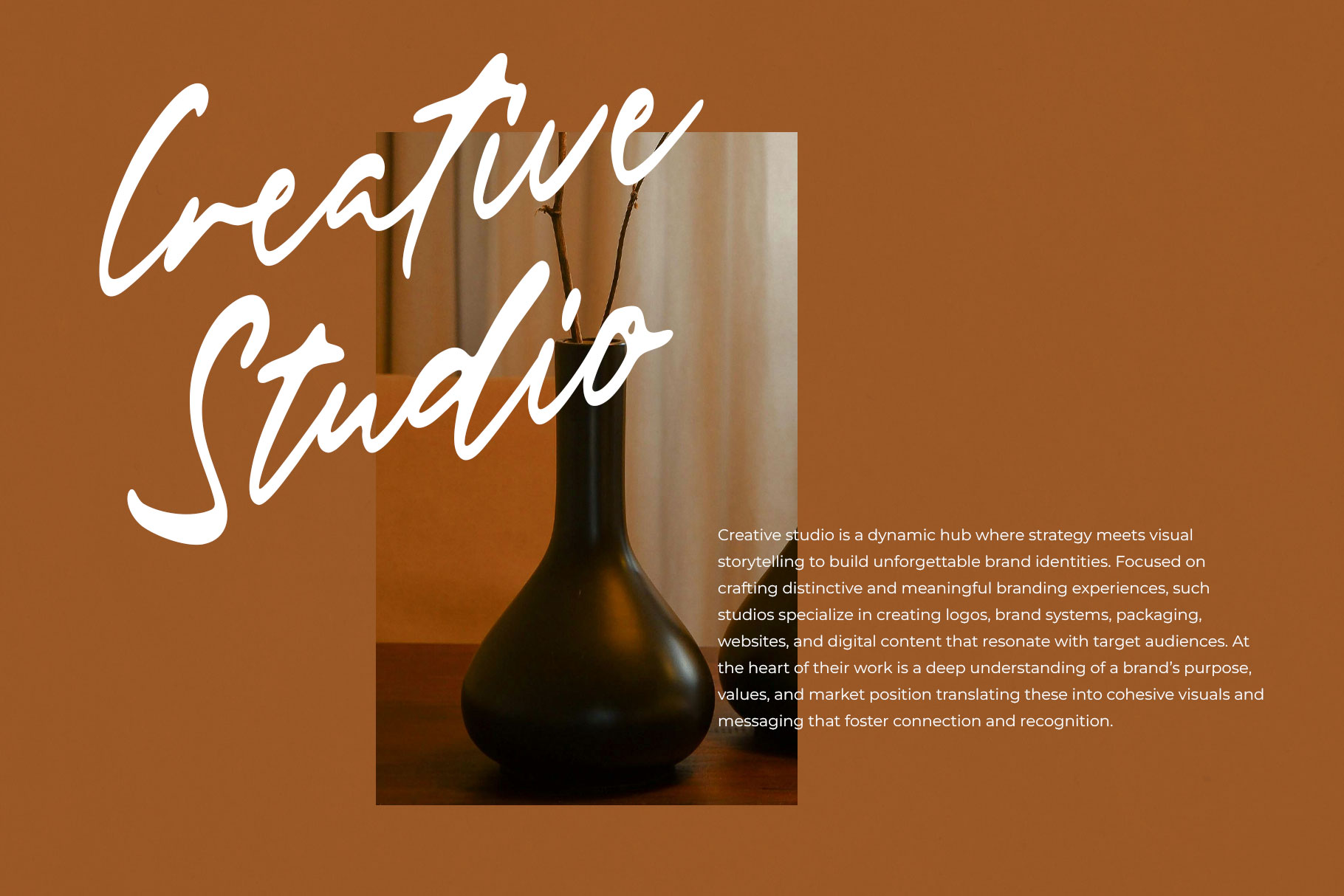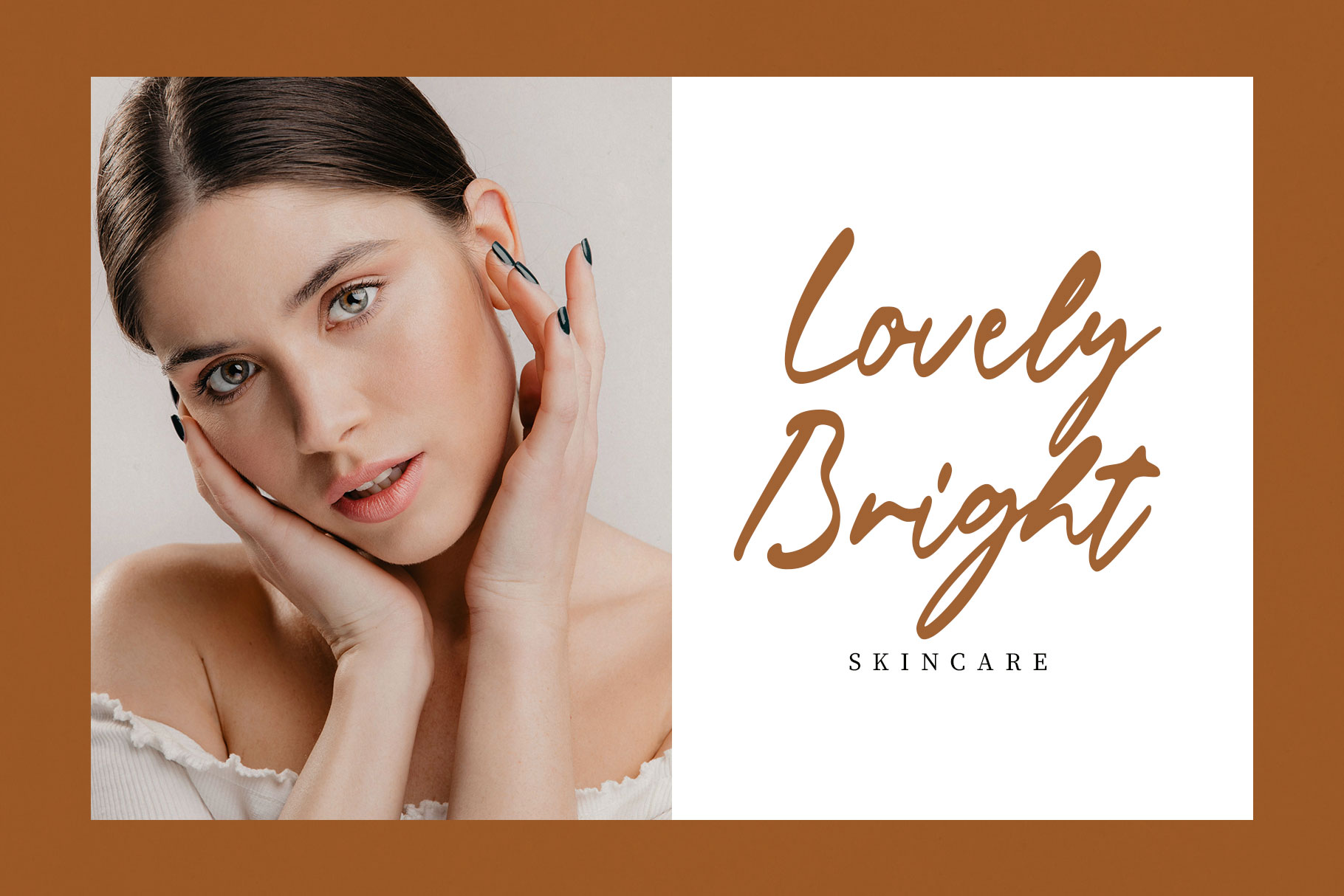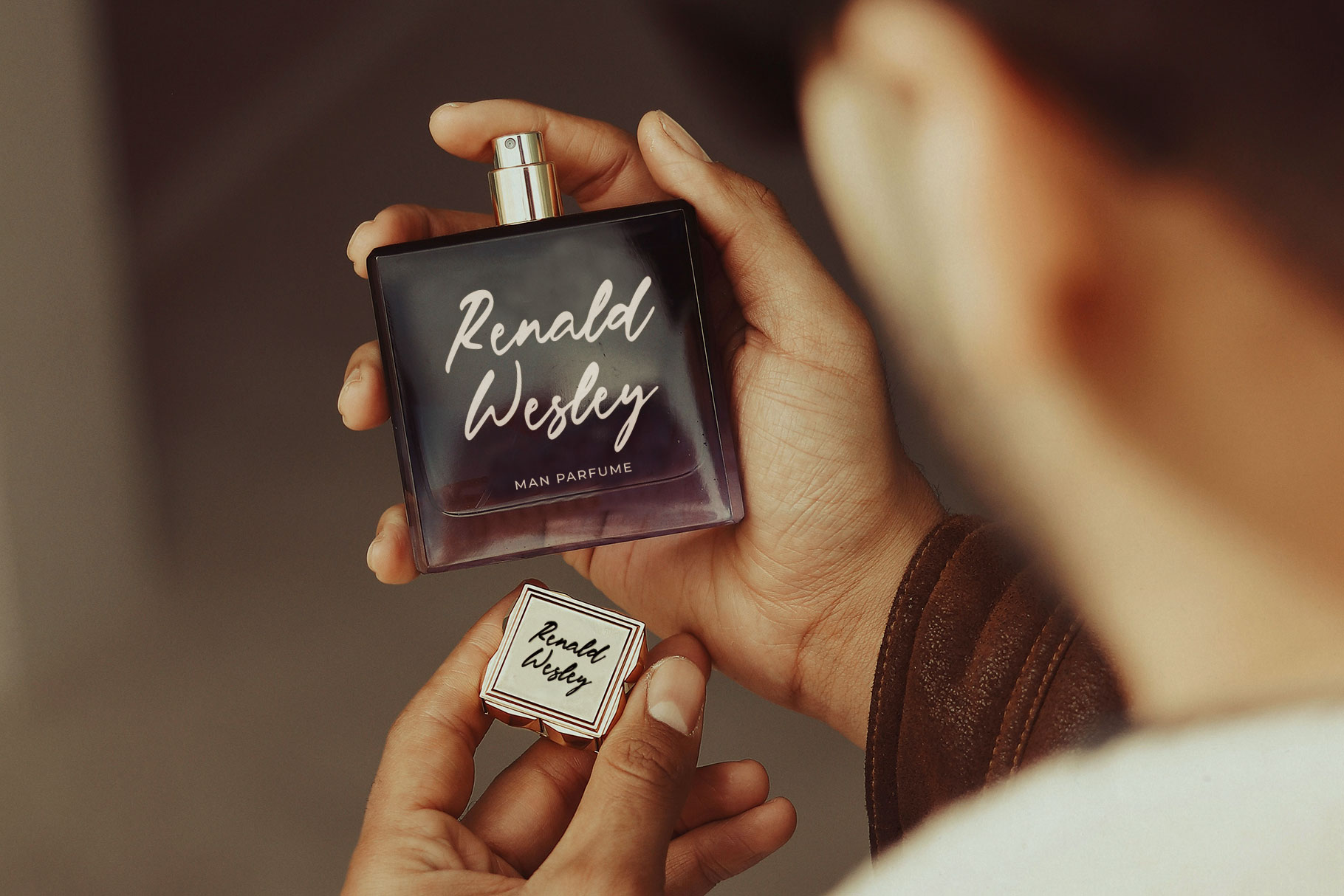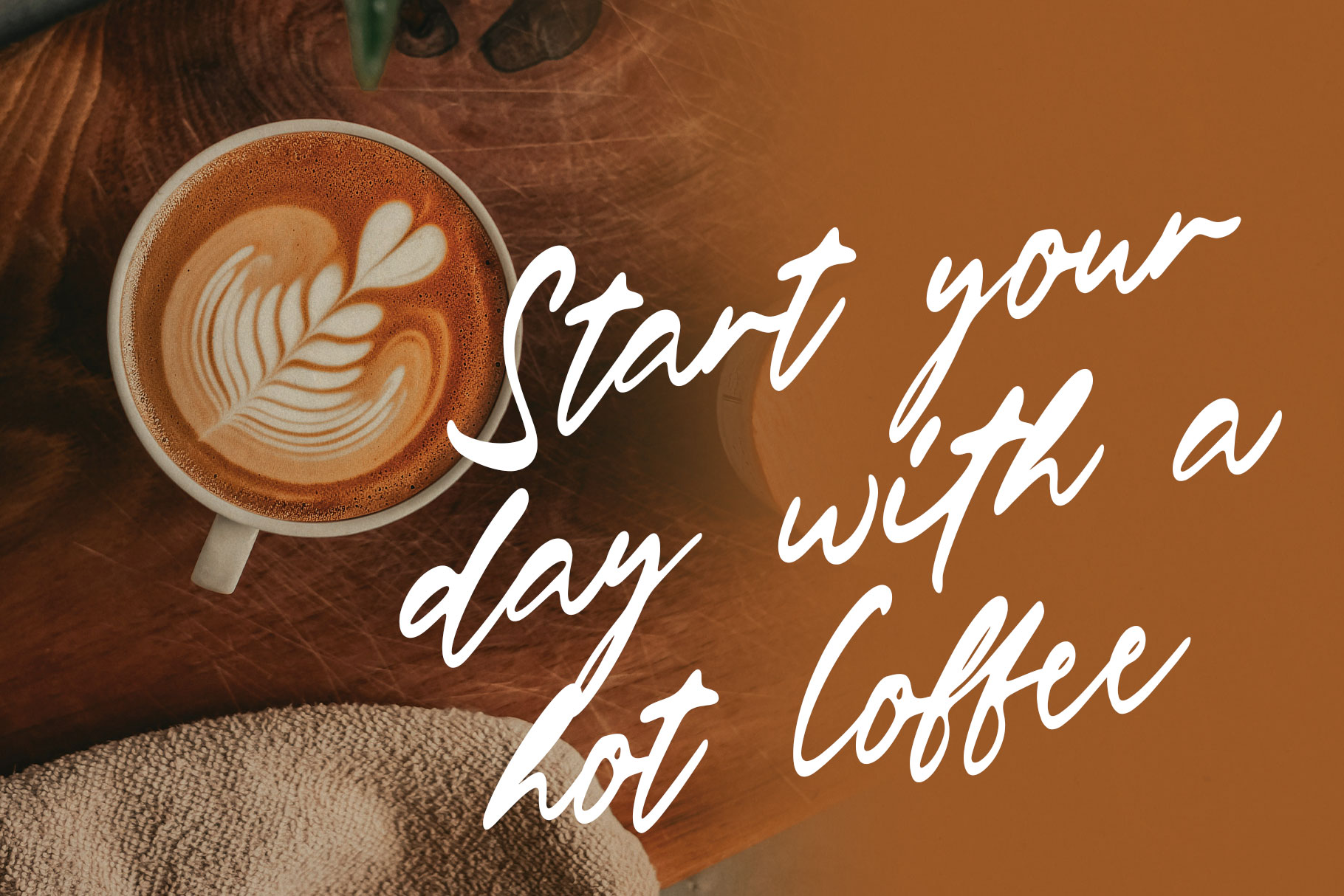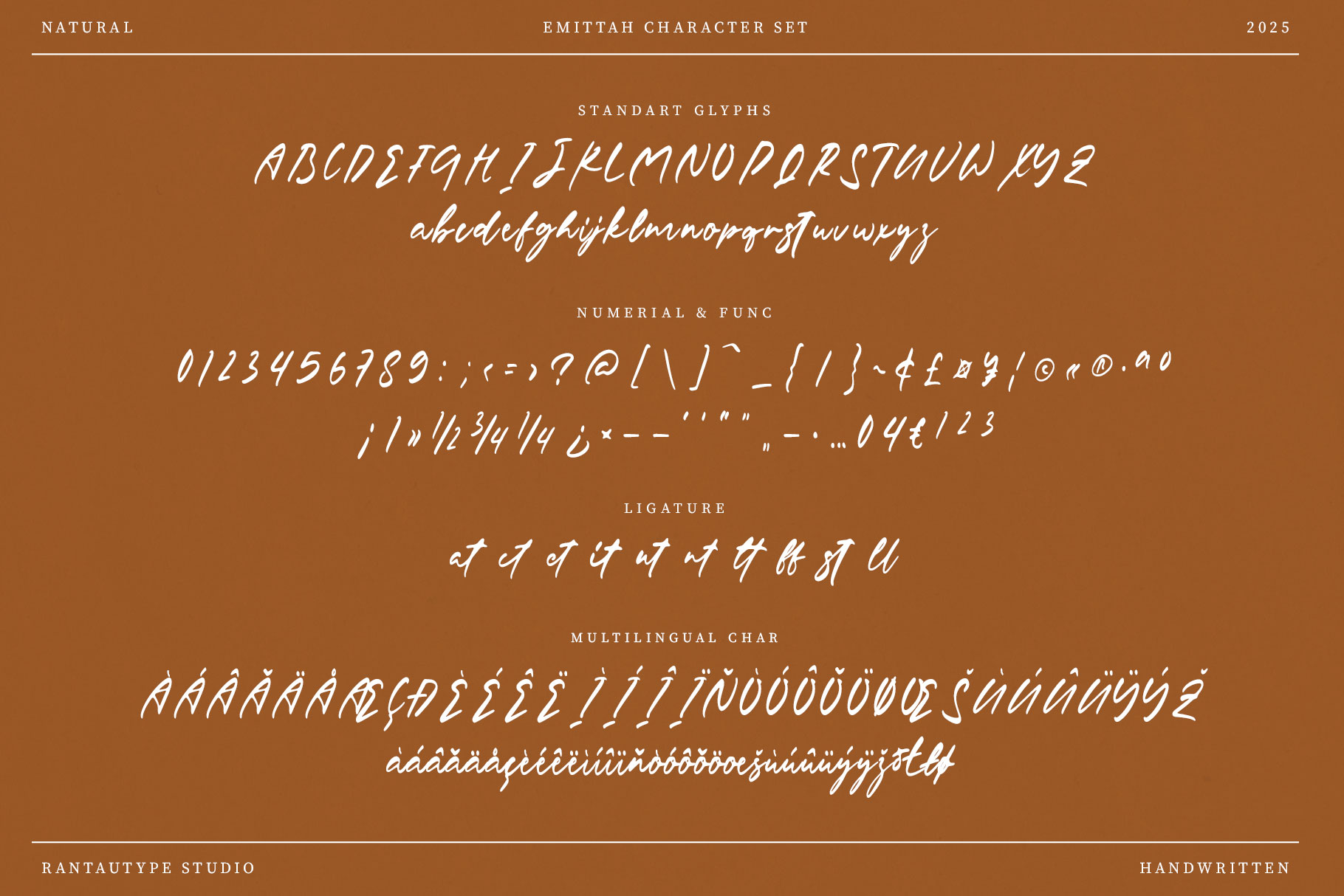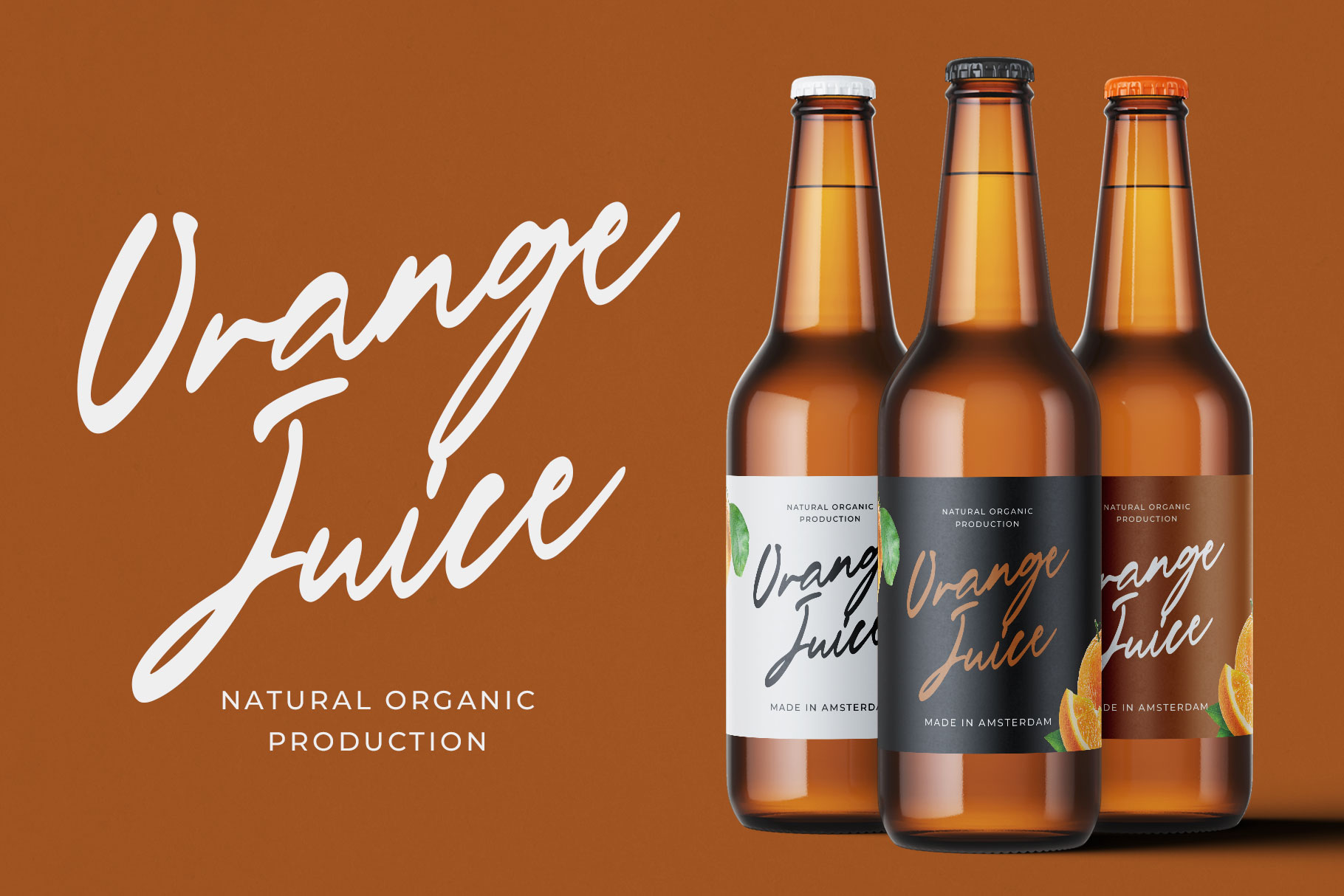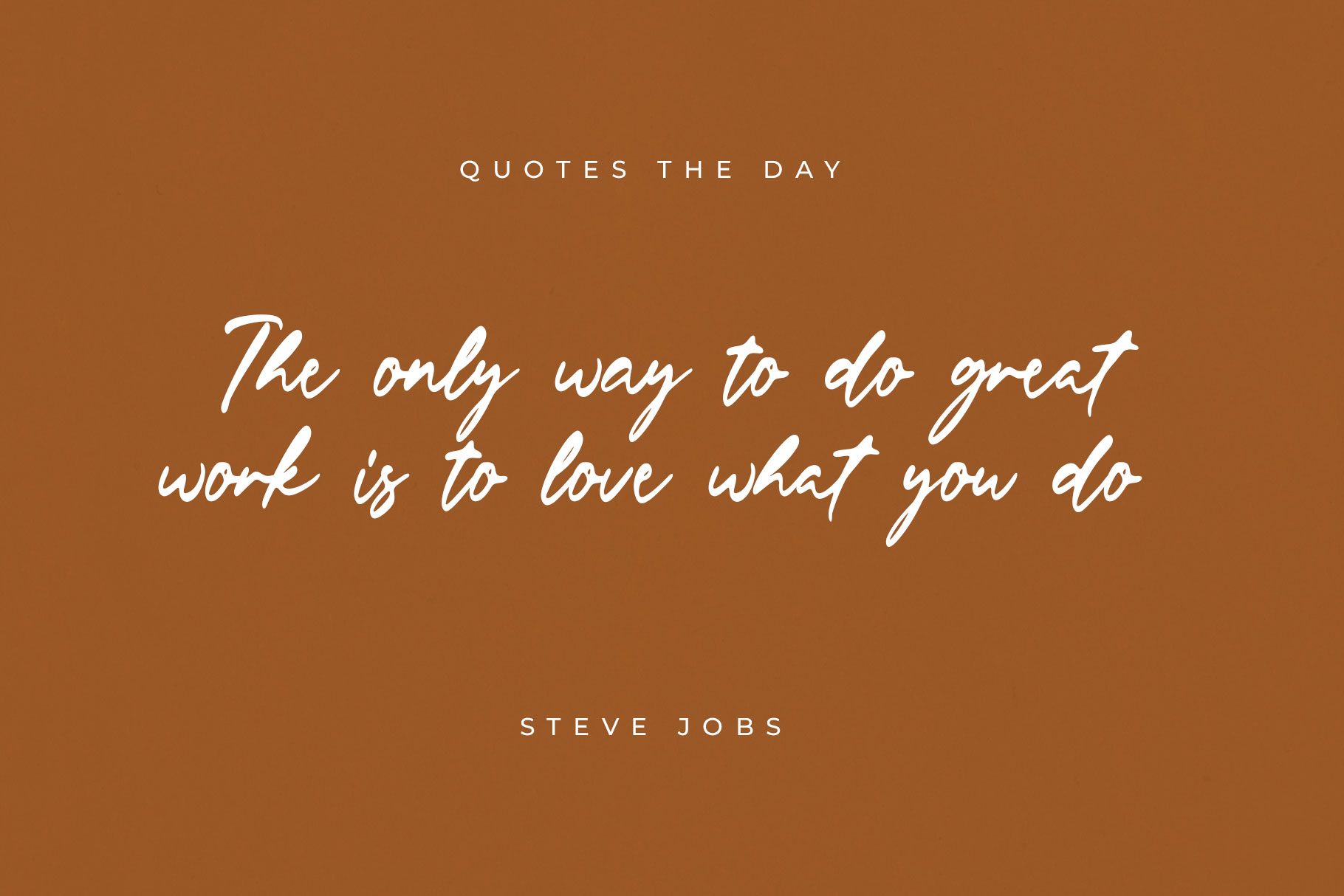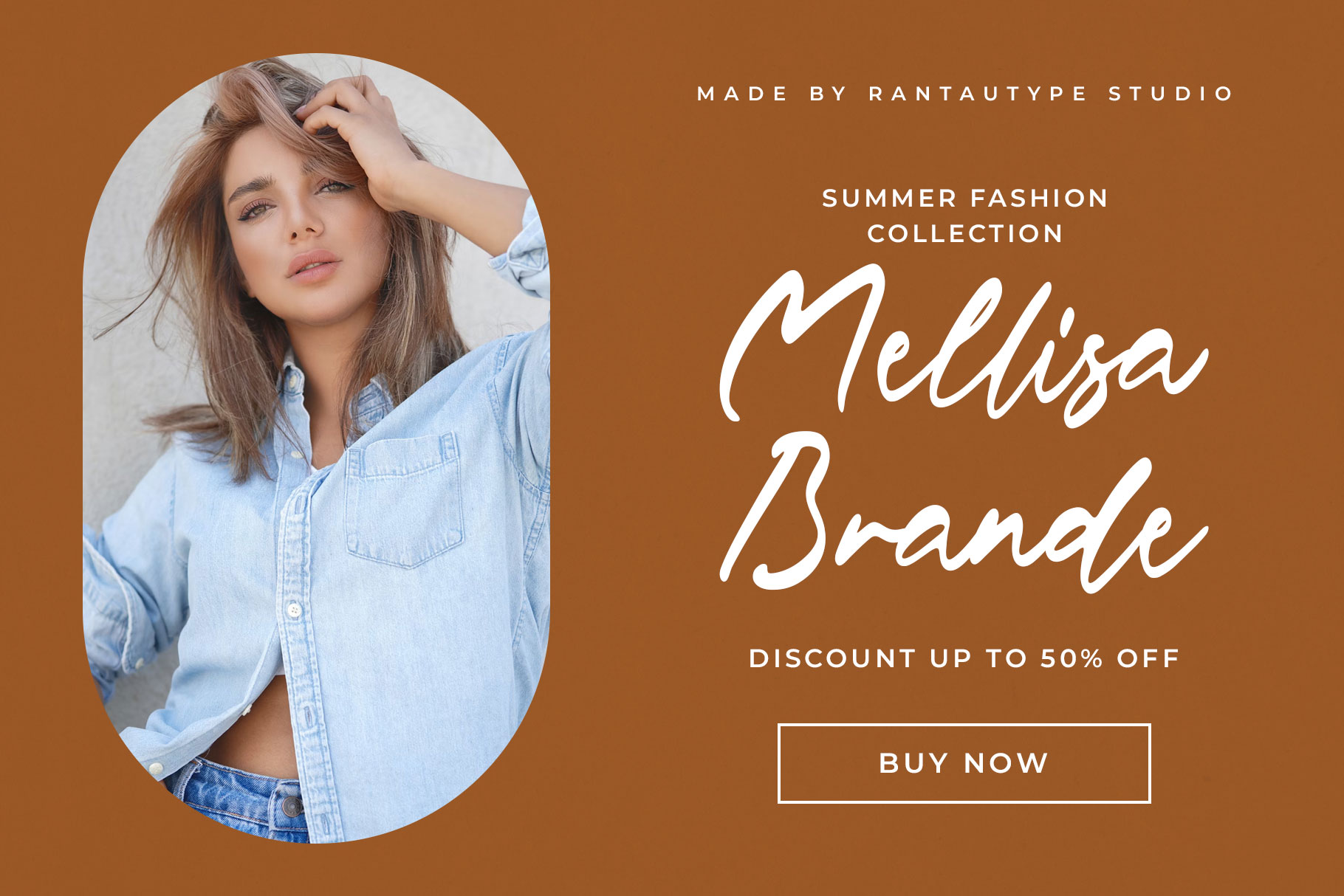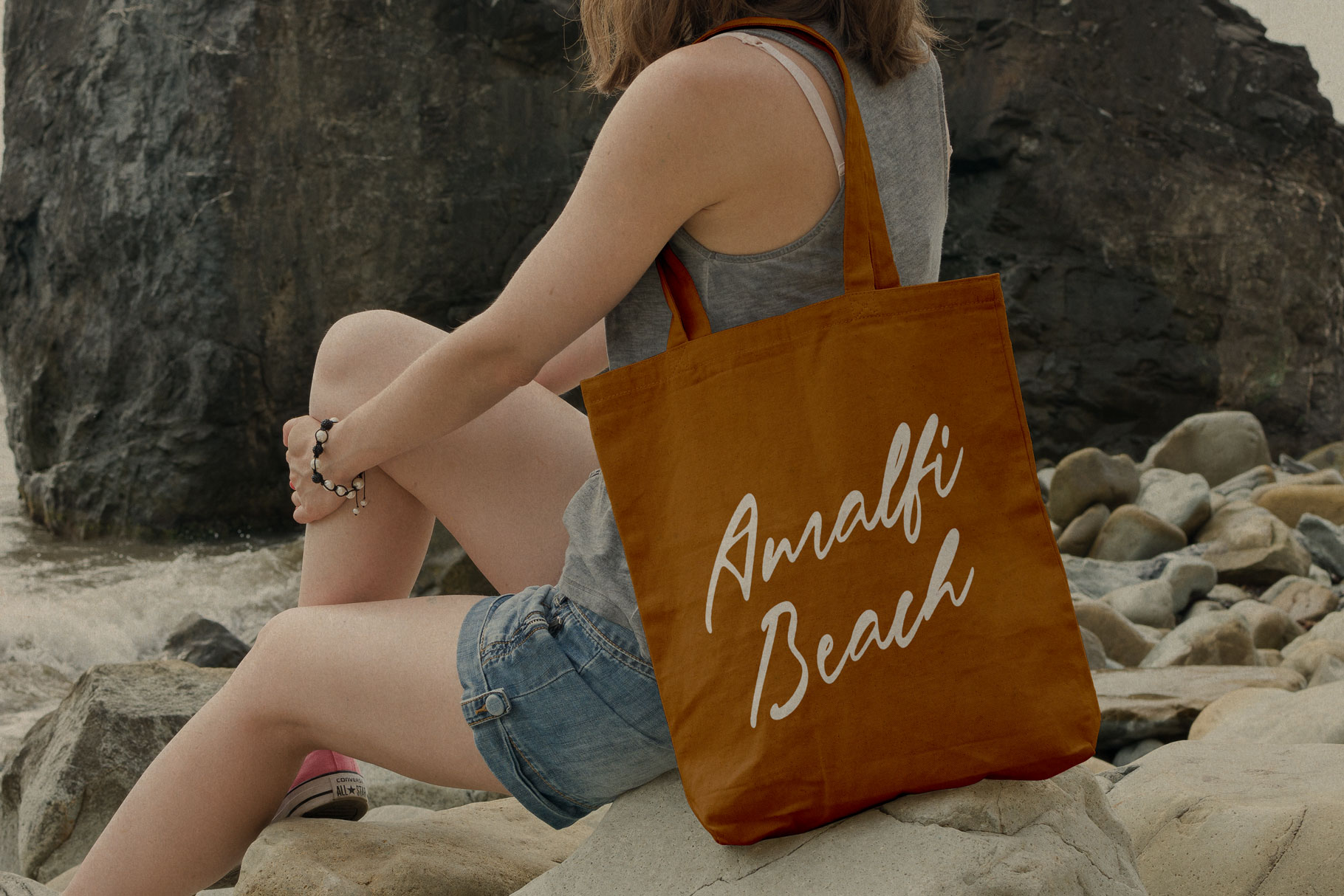
Emittah Natural Handwritten Font
Emittah is natural handwritten font made with personal touch. Emittah bring flows with ease, featuring imperfect strokes, varying pressure and authentic letterforms that mimic real handwriting.
Emittah is a perfectly choice for any creative endeavor, creating, modern, lifestyle design such as logotype, title, cover, branding, invitations, wedding designs, display and magazine, social media posts, advertisements, printed quotes, product packaging, corporate brand, product designs, labels, photography, watermarks, special events and any other project with handwritten feel.